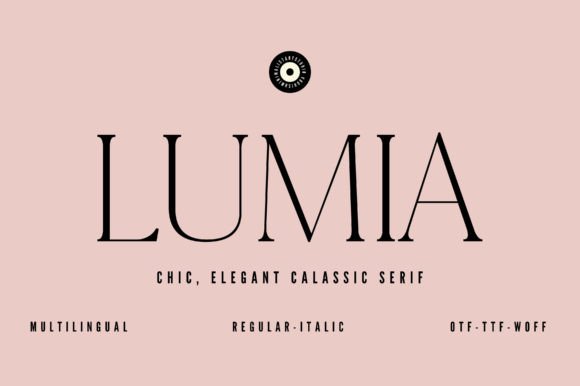
Journey through the enchanting realm of typography with "LUMIA," the serif typeface that captures the essence of understated elegance. Designed by Minimalistartstudio, this font family embodies a harmonious blend of tradition and modernity, providing a touch of sophistication to your creative endeavors.
Picture "LUMIA" as the perfect partner for your website, adding a layer of refinement and visual appeal. Its serifs, meticulously crafted with a minimalist touch, exude a timeless charm that resonates with the digital age. Whether you're a seasoned designer or a budding enthusiast, "LUMIA" is your gateway to crafting stunning headlines, captivating paragraphs, and unforgettable logos.
With "LUMIA" at your fingertips, you'll discover a world of design possibilities. Imagine your website adorned with headings that command attention yet maintain a sense of grace. Picture paragraphs that flow effortlessly, inviting your readers on a captivating journey through your content. Envision logos that exude professionalism and leave a lasting impression on your audience.
"LUMIA" is more than just a font; it's an extension of your creative expression. Its versatility knows no bounds, effortlessly adapting to a myriad of design styles and purposes. Whether you're crafting a personal blog, an e-commerce website, or a corporate presentation, "LUMIA" will seamlessly elevate your designs, transforming them into masterpieces of digital art.
Embrace the allure of "LUMIA" and embark on a design odyssey where elegance meets modernity. Let your creativity soar as you witness the transformation of your digital creations into captivating works of art. Experience the joy of typography with "LUMIA," the serif typeface that ignites your imagination and leaves an indelible mark on the world of design.